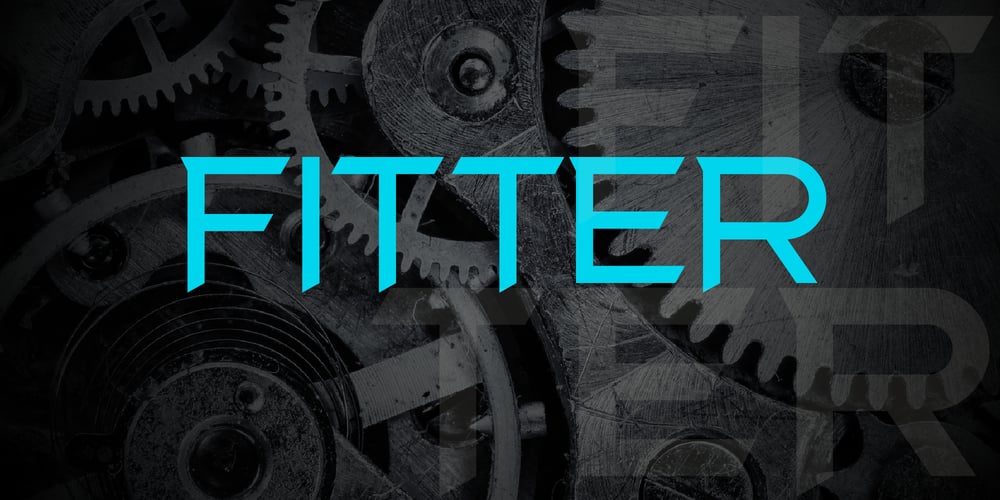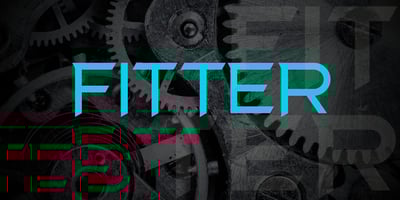
Fitter
Fitter font
Fitter Font Family was designed by Volodymyr Berla and published by VladB. Fitter contains 8 styles and family package options. Fitter is a modern sans serif geometric font, includes upper and lower case characters, Latin, Cyrillic, Latin Eastern Europe, Turkish, Baltic and other.Fitter family consists of 8 fonts, divided into 2 subgroups (according to the type of style – St, Op), and have the 4 types of thickness in each subgroup.Fitter fonts will be useful in developing a brand, creating posters and other graphic products, and for word processing.